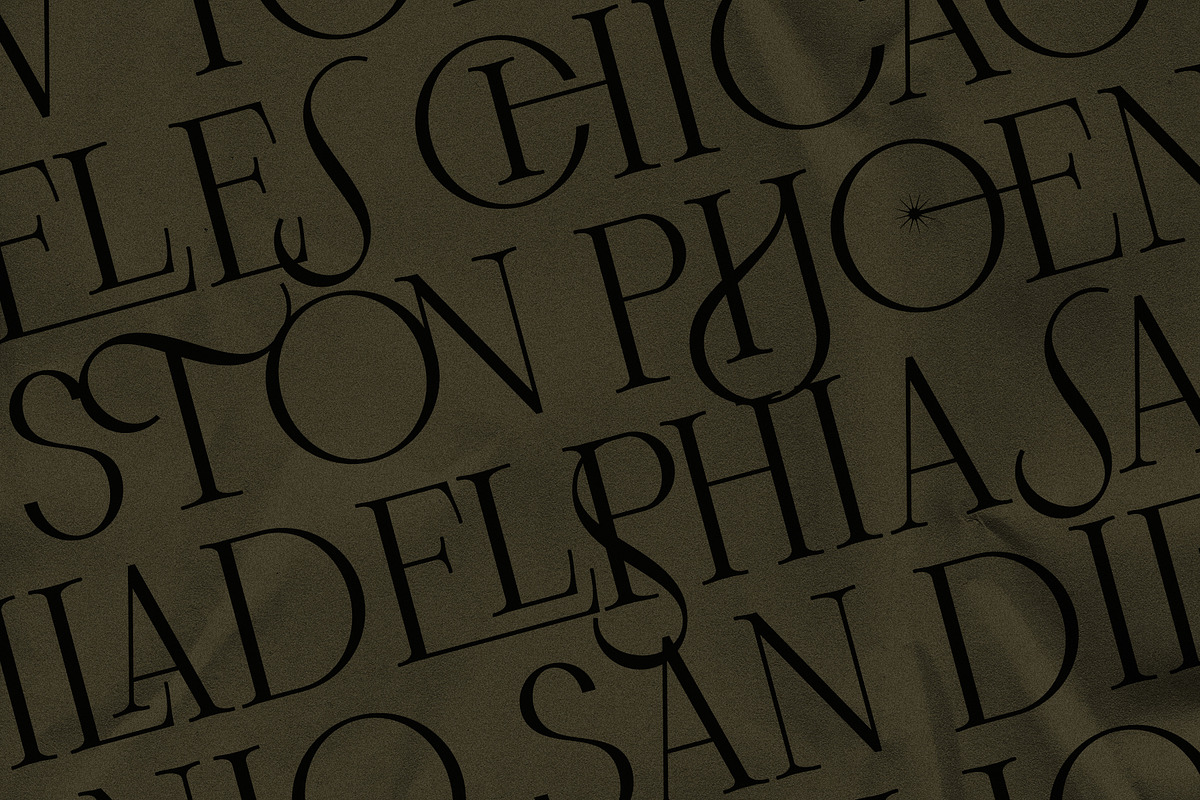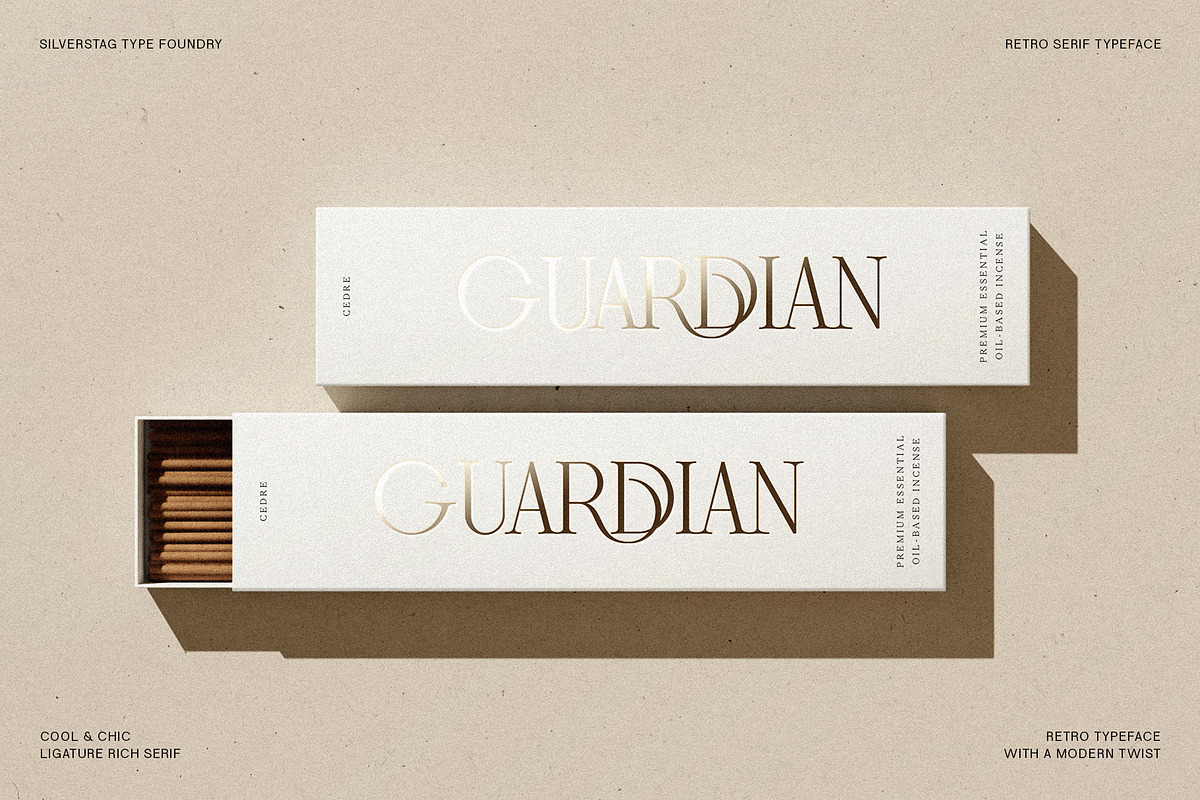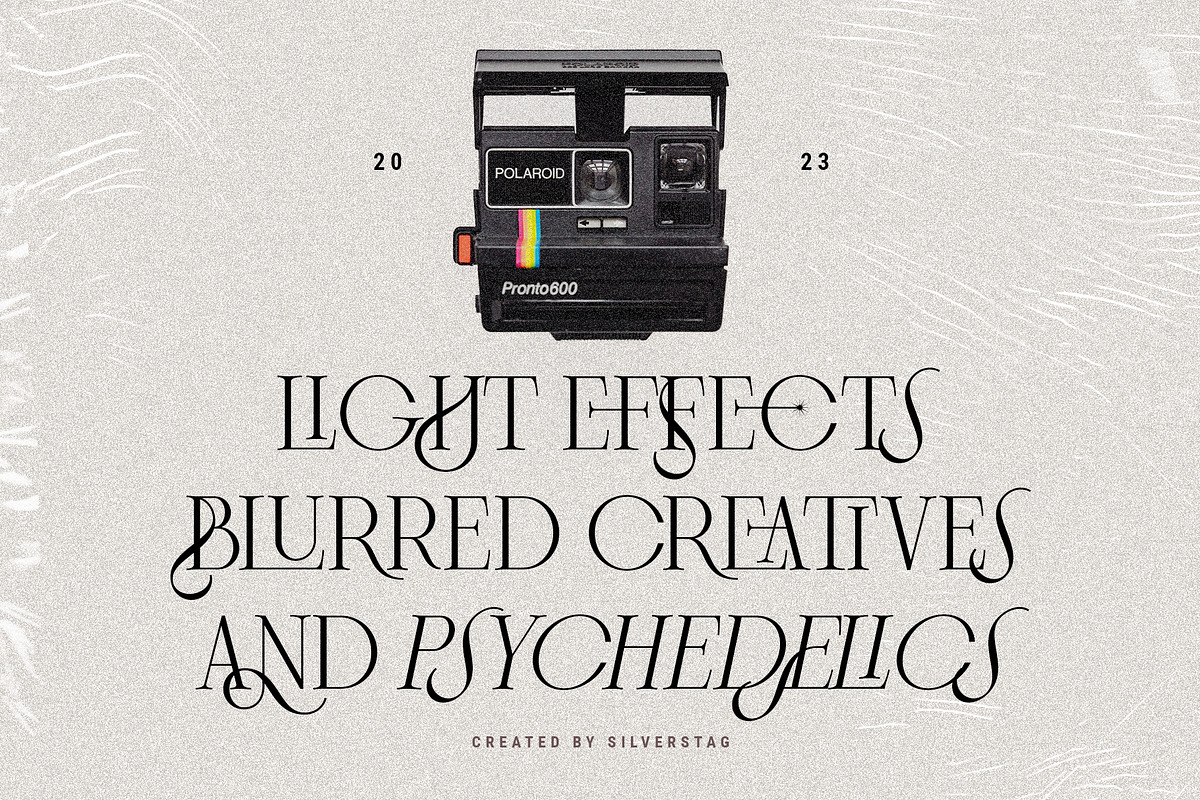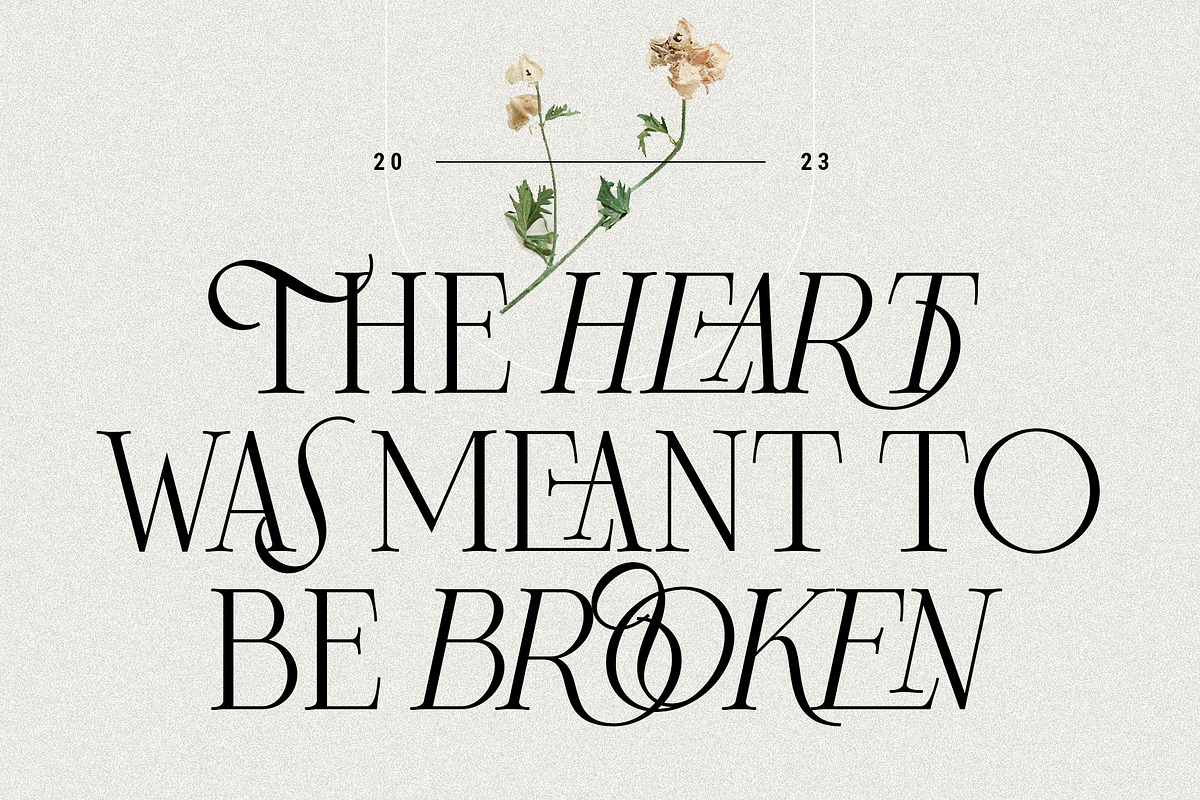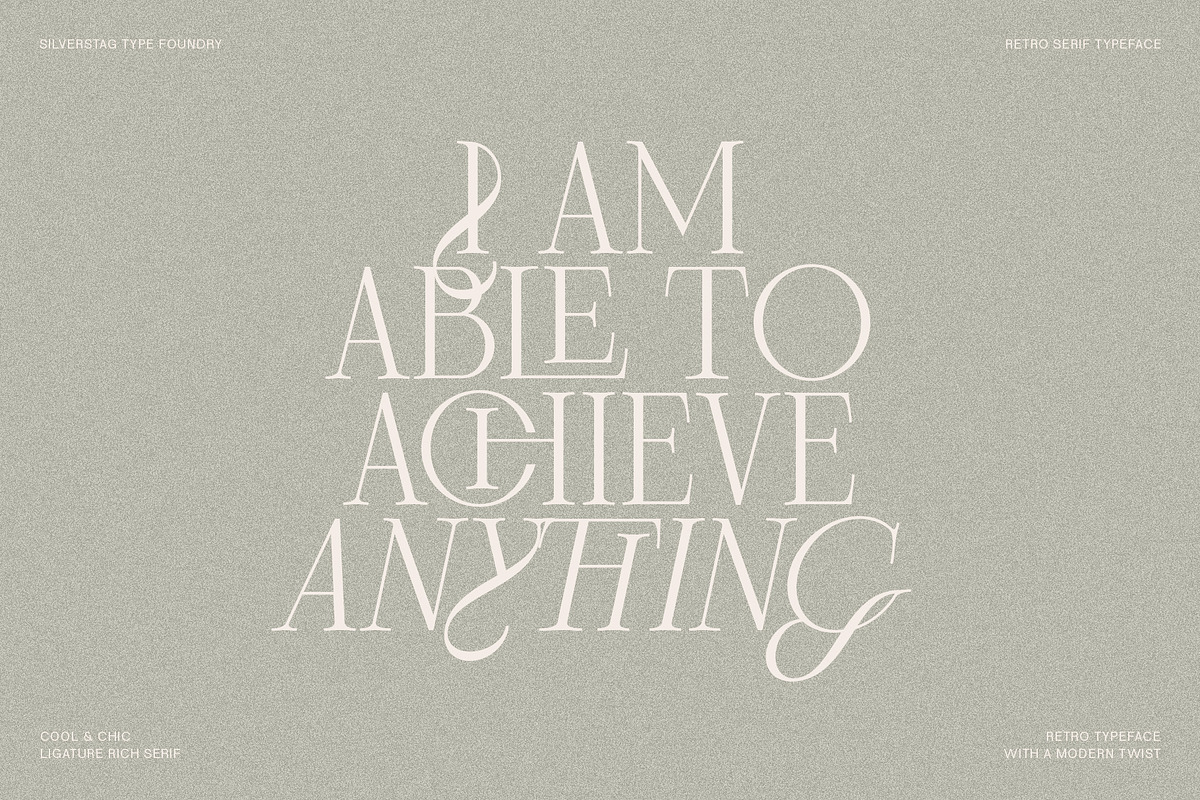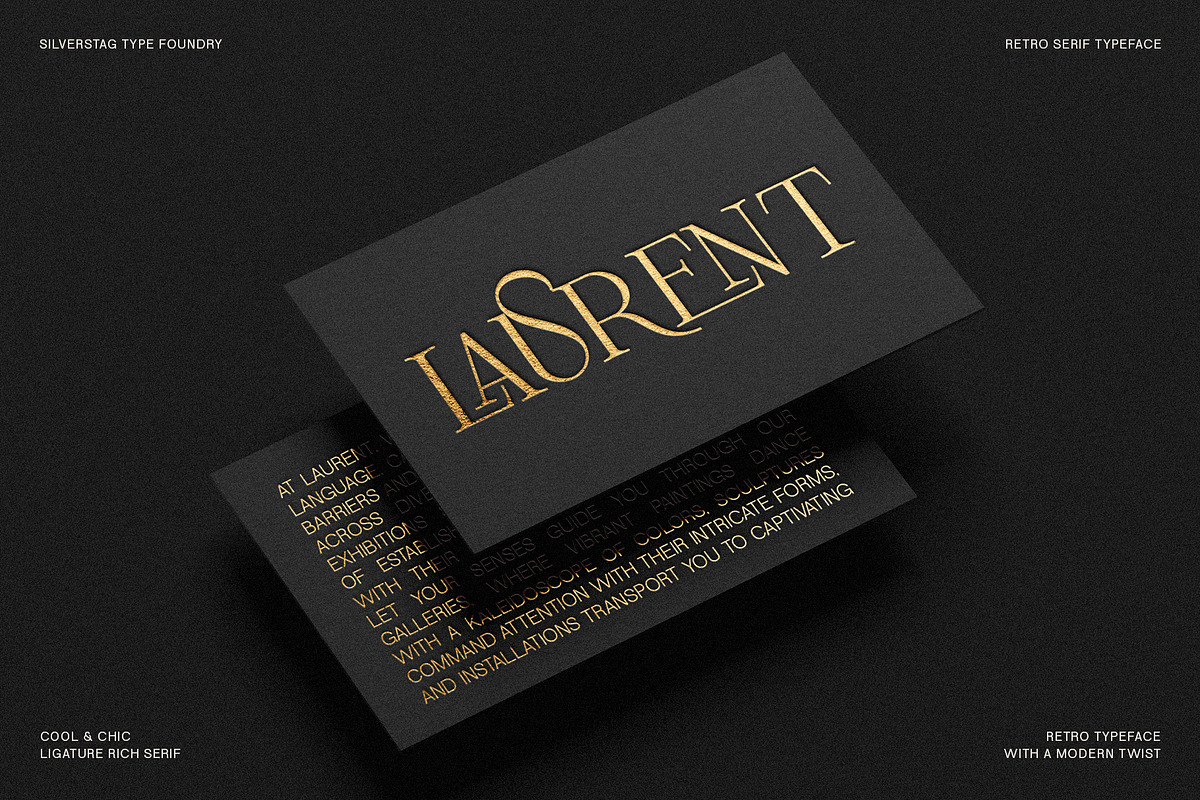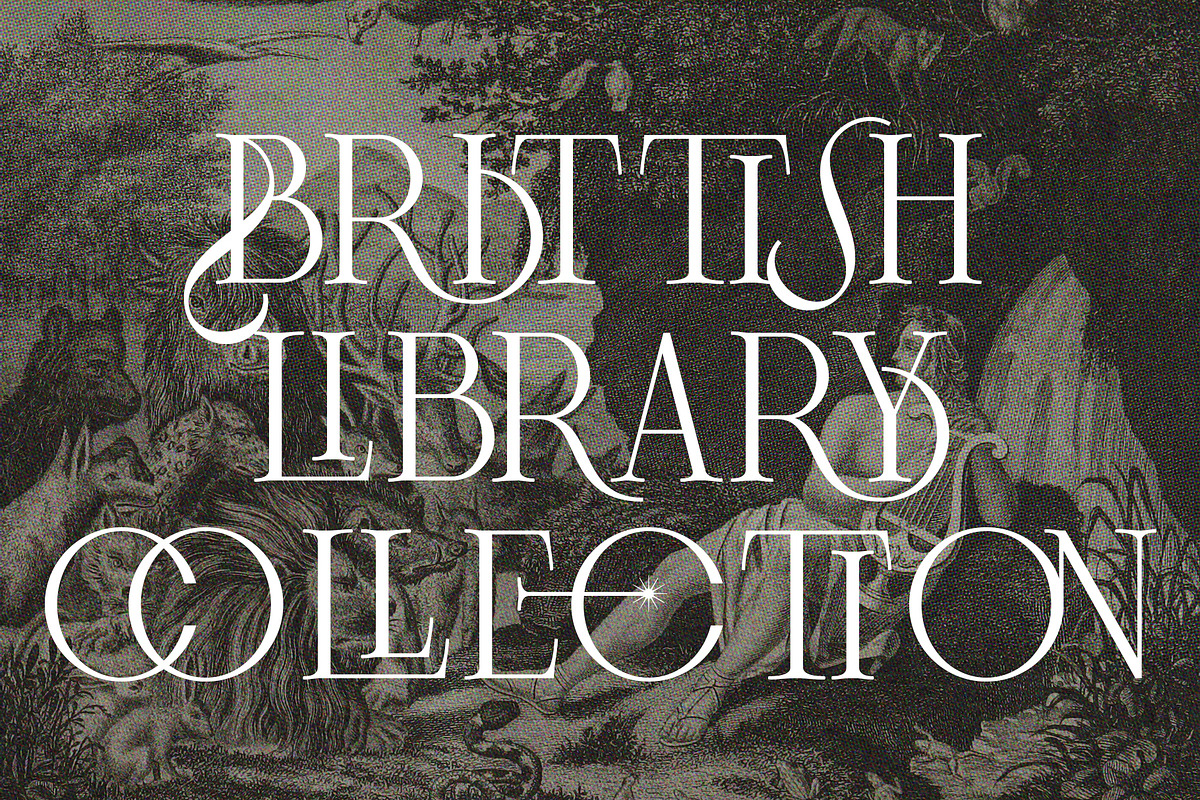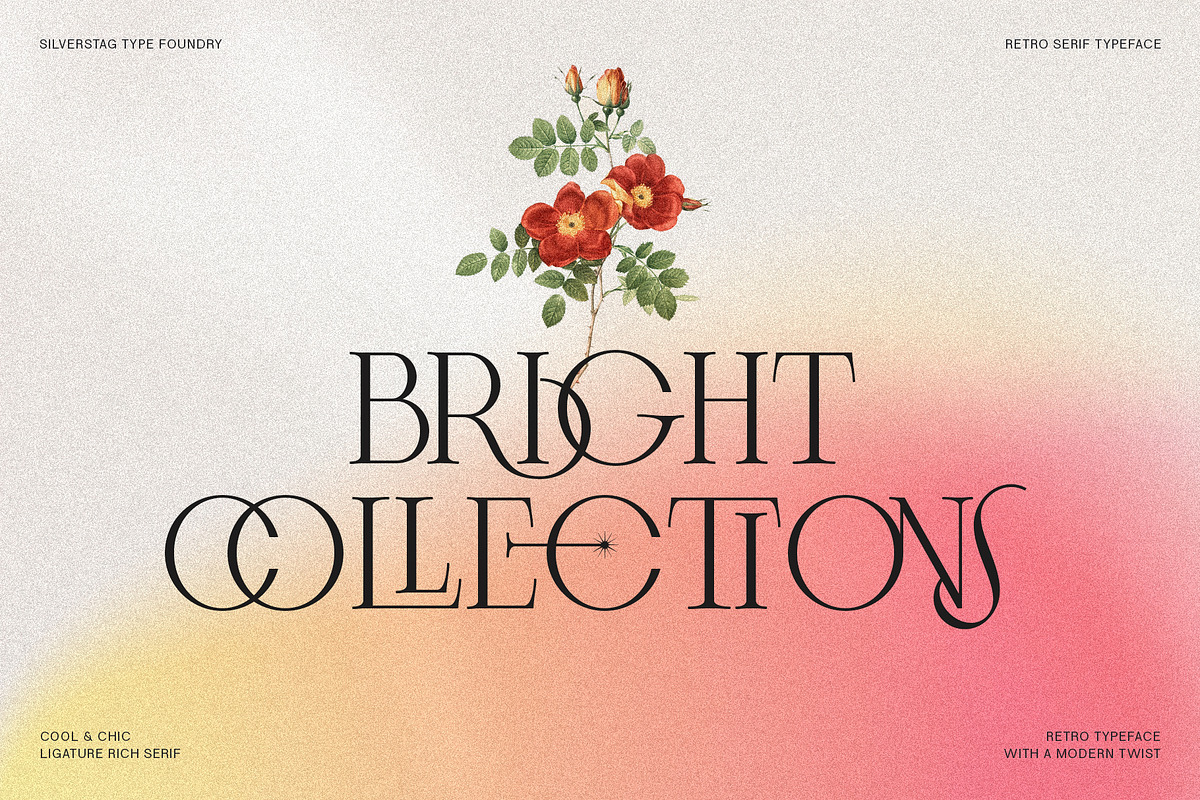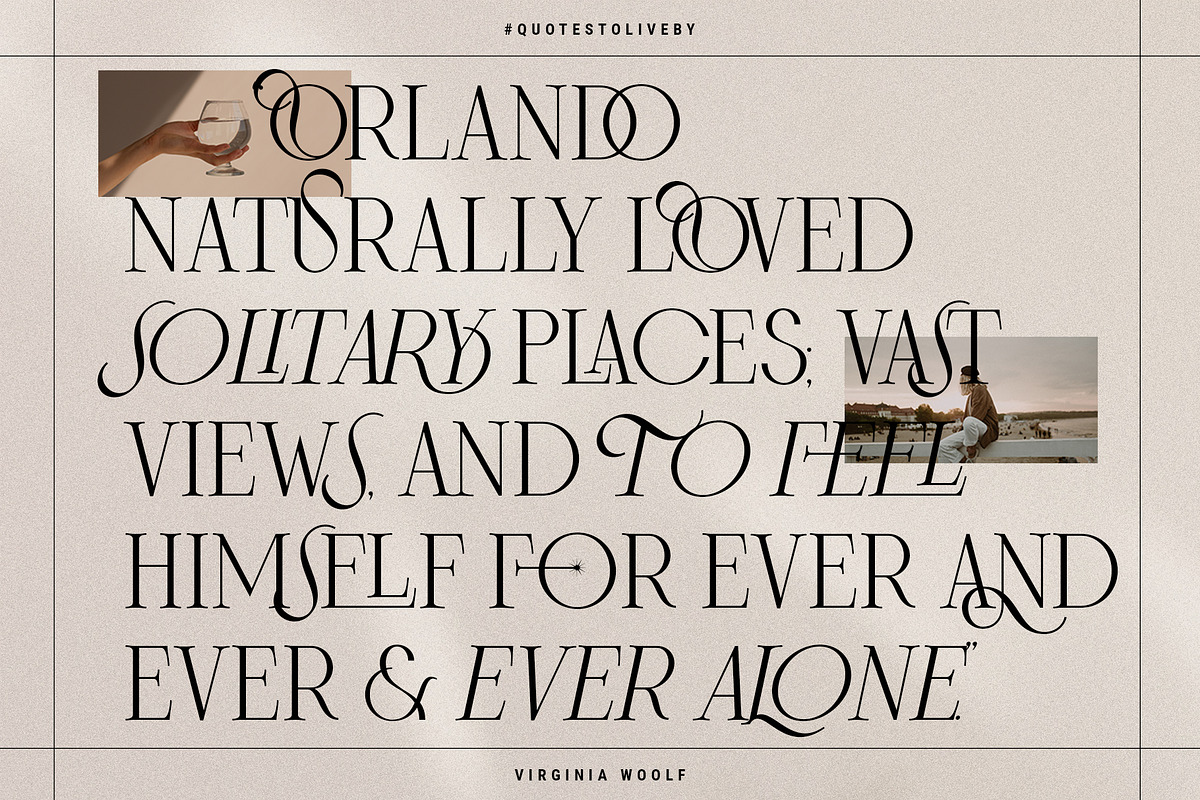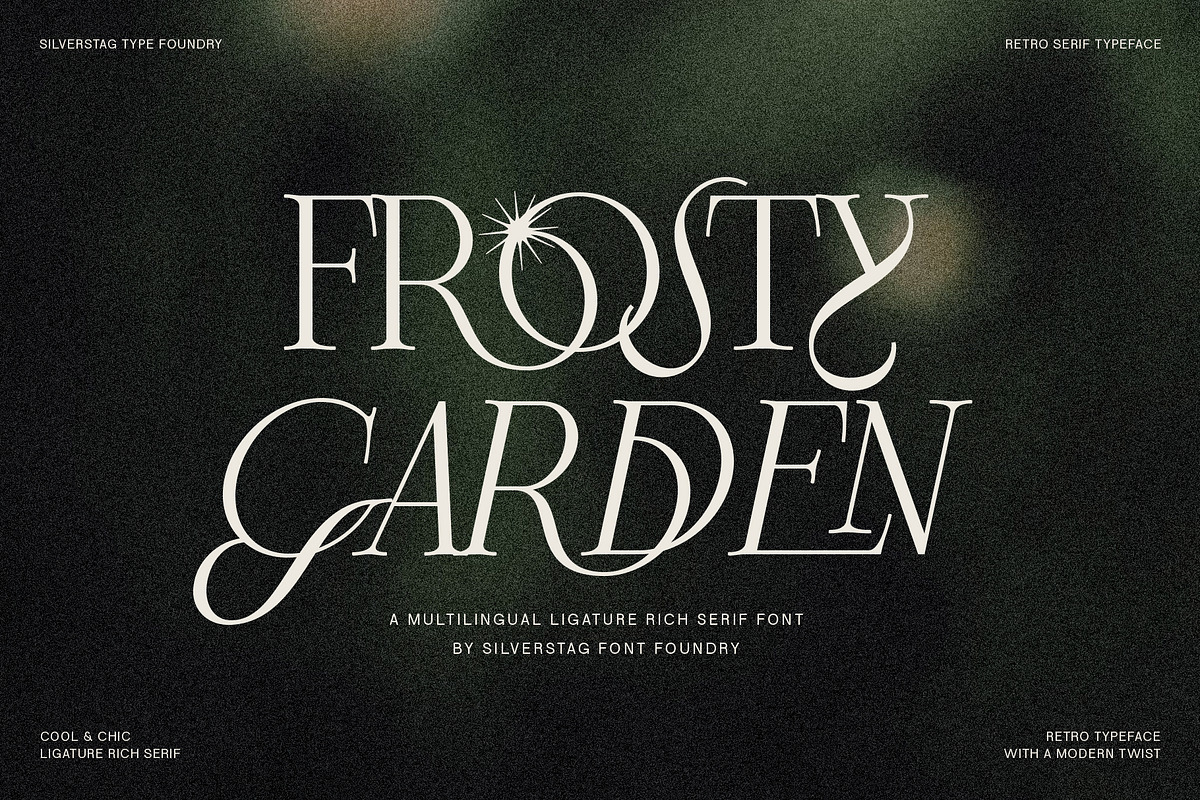
Frosty Garden - Elegant Retro Serif
Take a nostalgic stroll through time with Frosty Garden, a font that recaptures the beloved charm of its predecessor, Frosty Xmas. This stylish remake retains all the captivating elements of Frosty Xmas while expanding its versatility to suit a wider range of design applications.
Infused with the nostalgic charm of vintage lettering, Frosty Garden exudes a timeless elegance that will effortlessly elevate your designs. With two captivating variants, regular and italic, you'll have the flexibility to create a variety of moods and styles. The regular variant features smooth, flowing strokes that evoke a sense of tranquility and sophistication, while the italic variant adds a touch of whimsy and playfulness.
Frosty Garden's decorative flair comes to life with over 80 ligatures and alternate glyphs. These flourish-filled elements add a touch of personality and individuality to your lettering, making your designs truly stand out from the crowd.
Whether you're crafting captivating headlines, crafting elegant logos, or designing captivating marketing materials, Frosty Garden will seamlessly complement your vision. With its wide language support, spanning over 90 languages, you can reach a global audience with your designs.
Embrace the timeless charm of Frosty Garden and let it transform your designs into works of art.